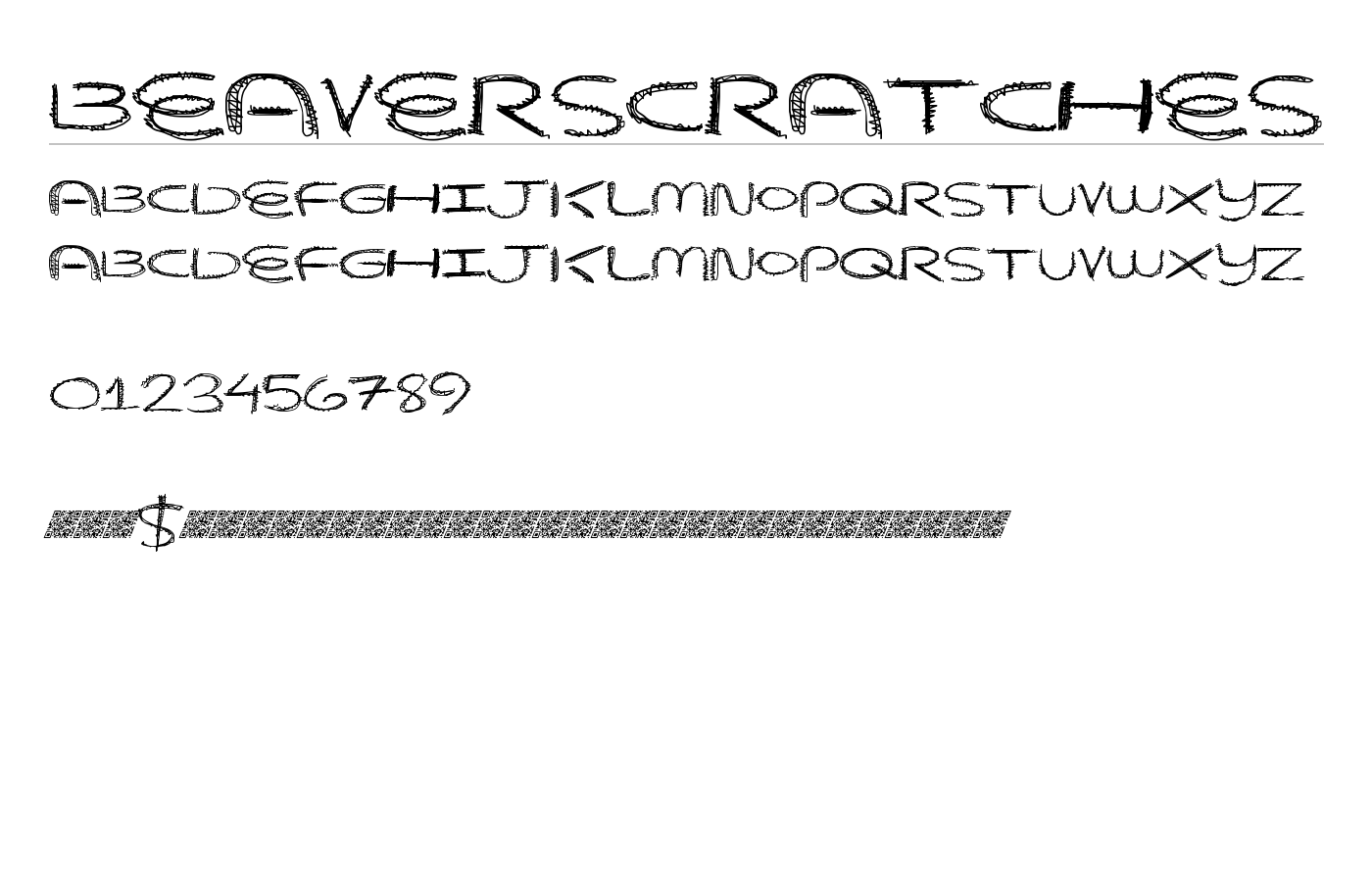
BeaverScratches is a playful sans serif font with a hand-drawn, textured style resembling rough scratches or etchings. Its irregular strokes and casual, sketch-like appearance give it an informal and creative vibe, making it ideal for designs that want to feel unique, artistic, and approachable. This font works well for posters, logos, and branding projects where a handmade or quirky look is desired.
BeaverScratches Font
About BeaverScratches Font